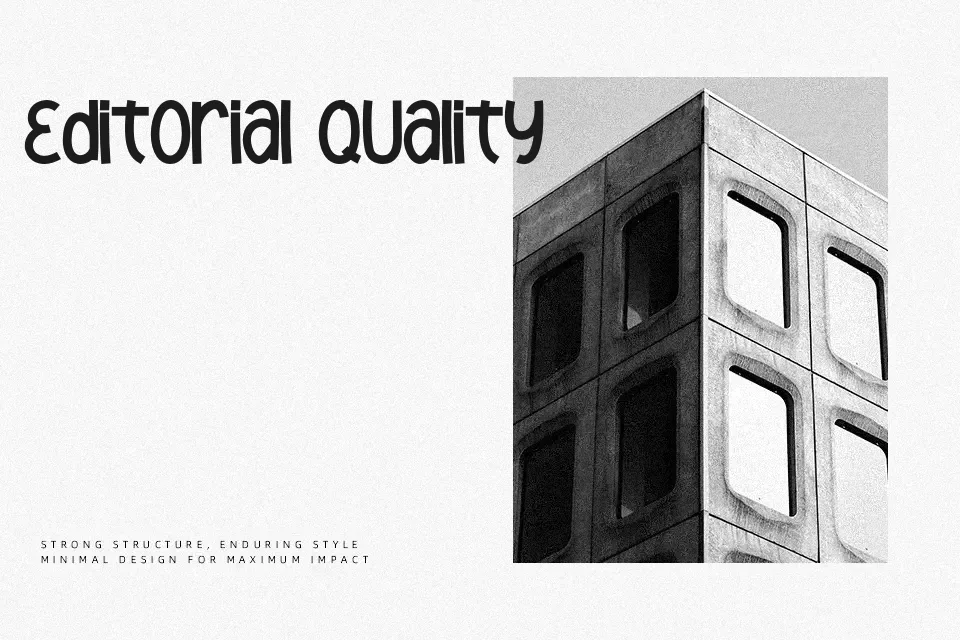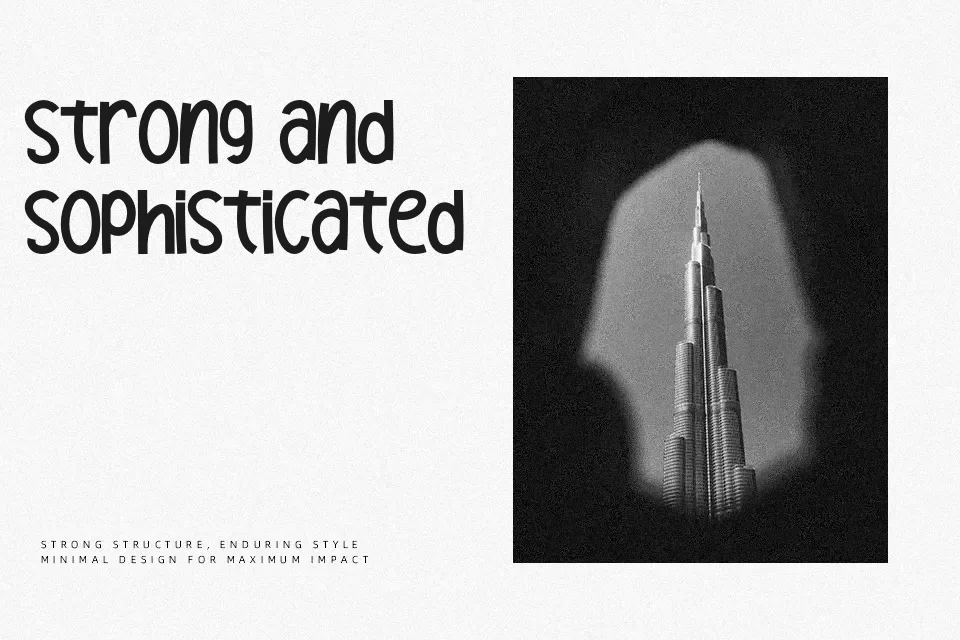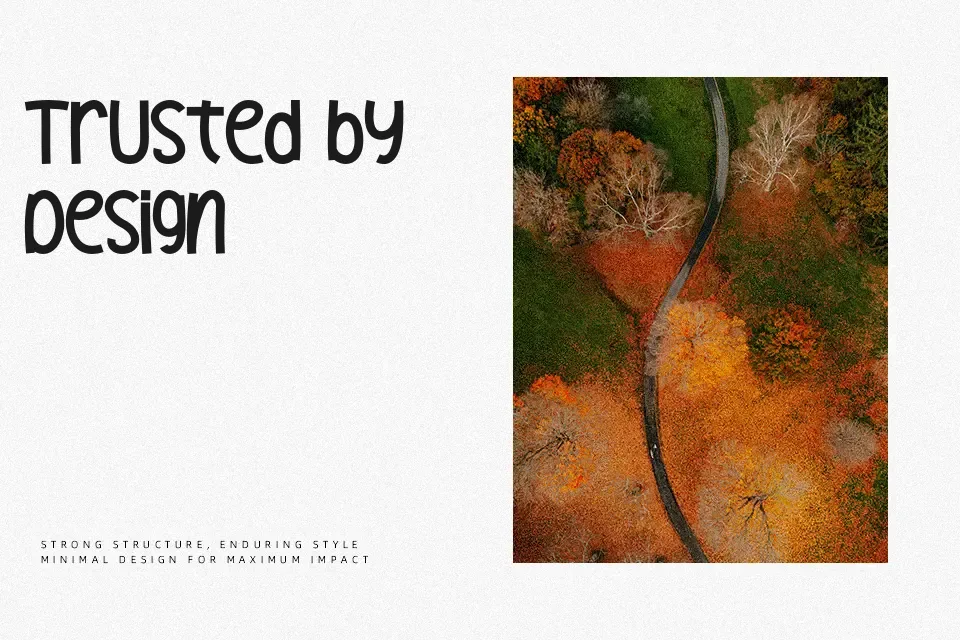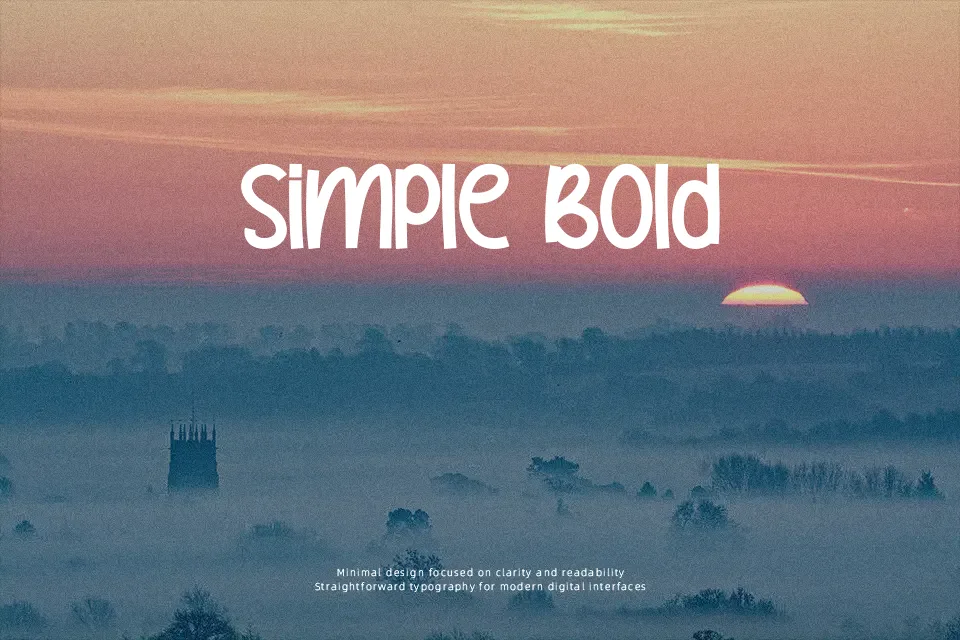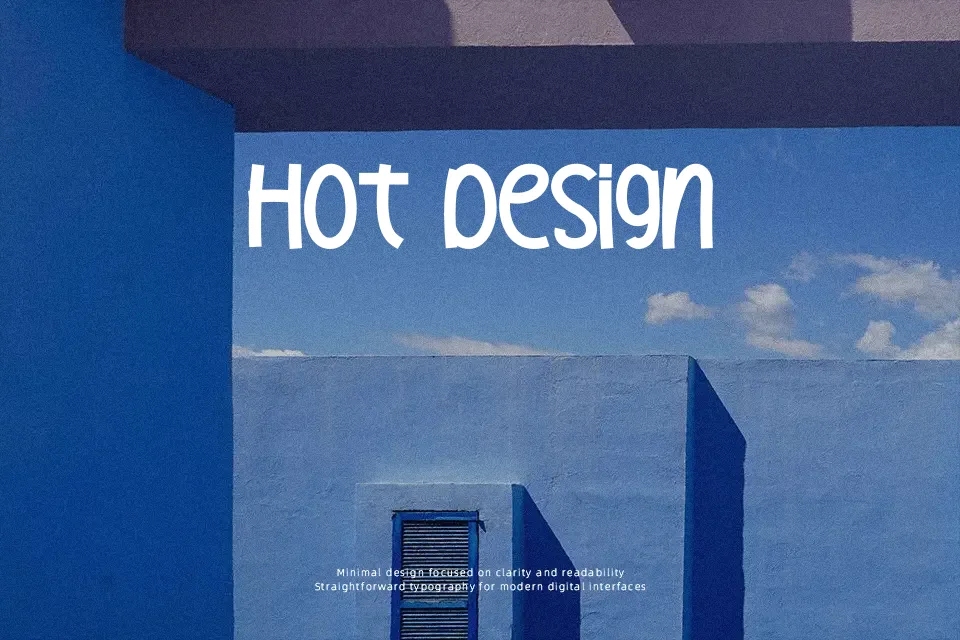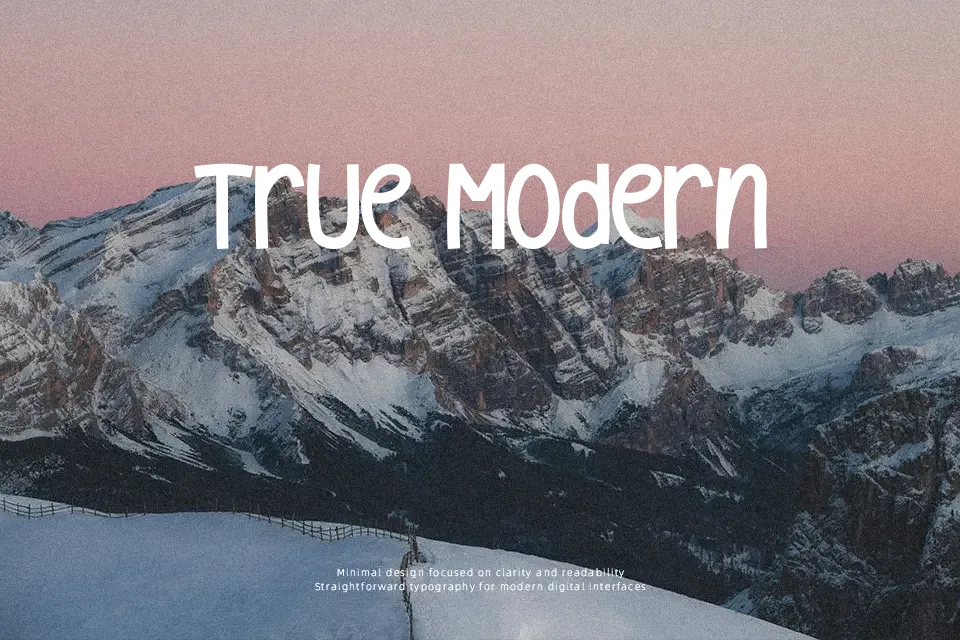
Takidos Font
Takidos Font introduces a cheerful display aesthetic defined by chunky proportions, softened terminals, and rhythmic baseline shifts across its character set. Consistent line weights and open counters preserve legibility in brief phrases, while slightly irregular stroke joins reinforce its handcrafted animation charm. Moderate kerning keeps character groupings readable across display sizes, though tight internal apertures can become cluttered when scaled down significantly. This energetic typeface thrives in comic headers, preschool merchandise branding, and festive event banners. However, its pronounced decorative personality causes visual fatigue in dense body paragraphs, making it strictly suited for prominent headline applications.
children’s book covers
animated video game titles
novelty snack packaging
school event banners
continuous paragraph reading
legal documentation
technical user interfaces
formal business correspondence